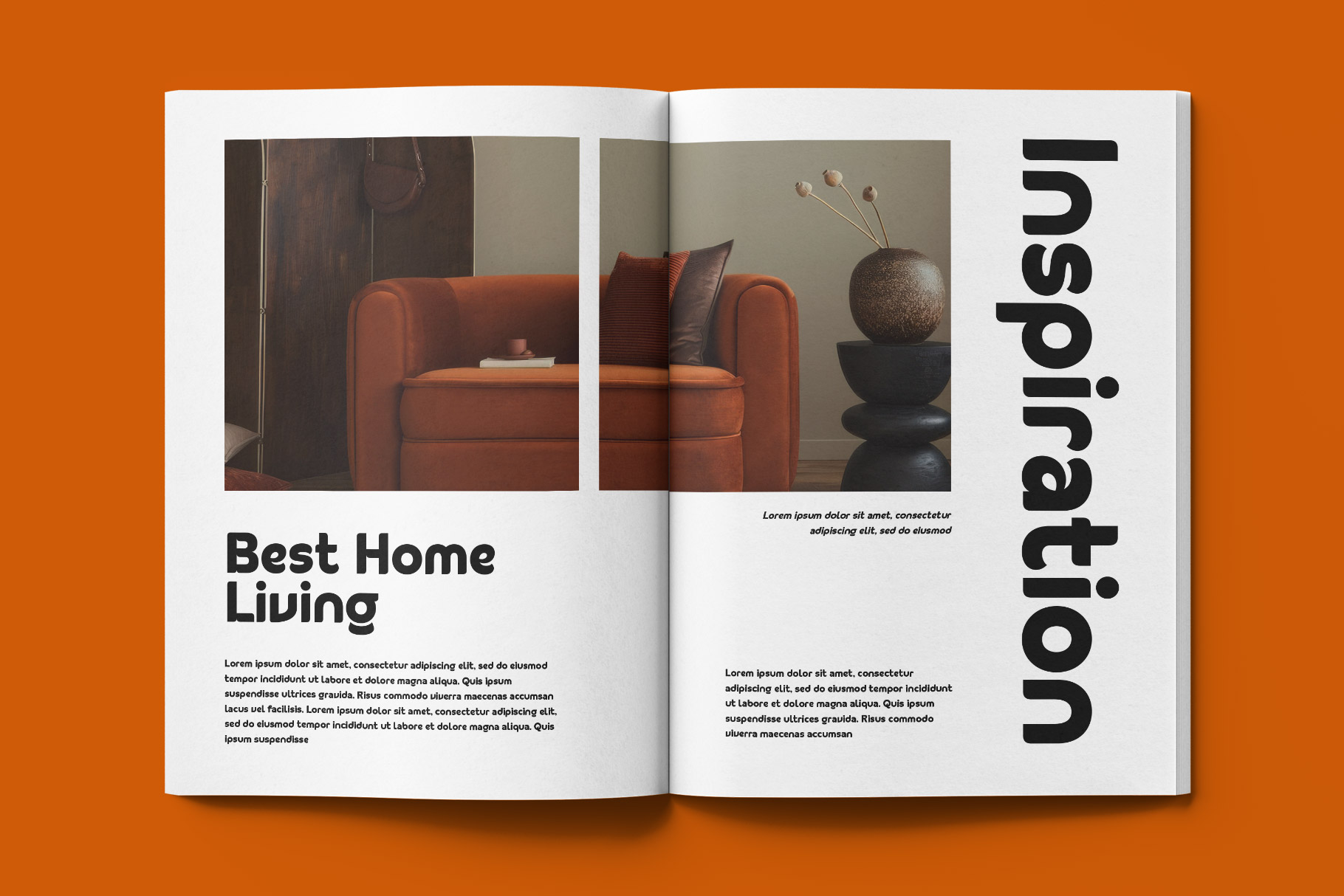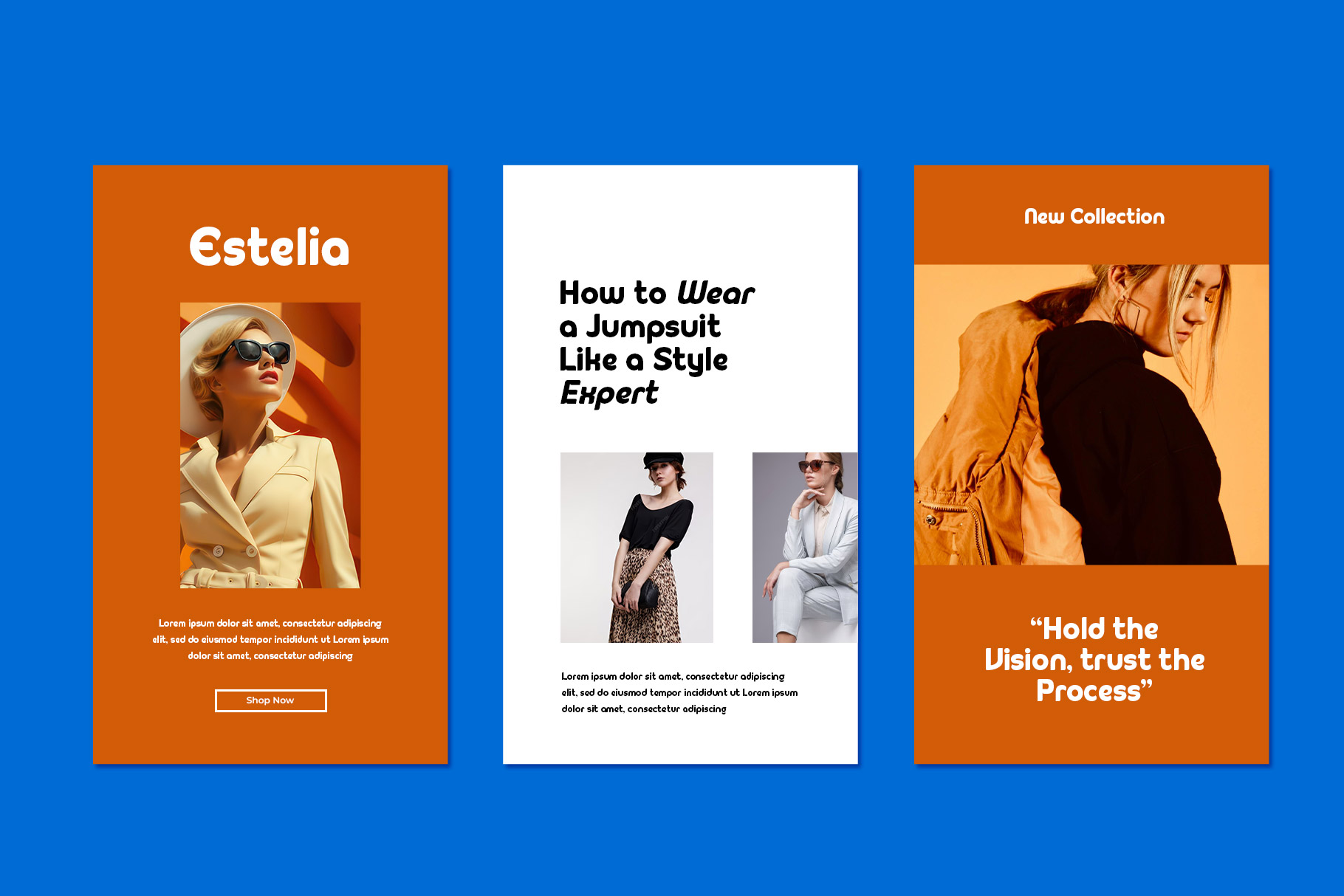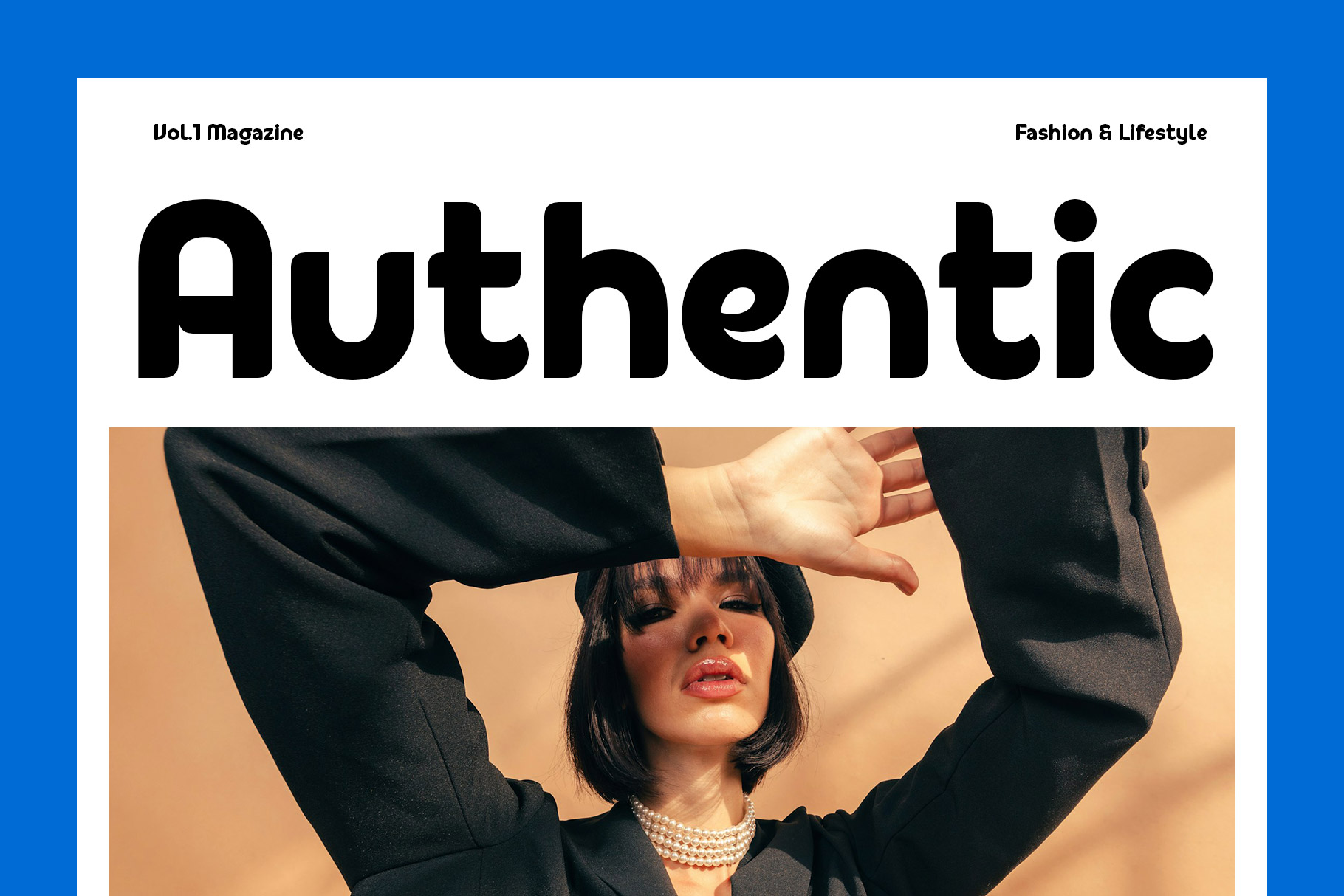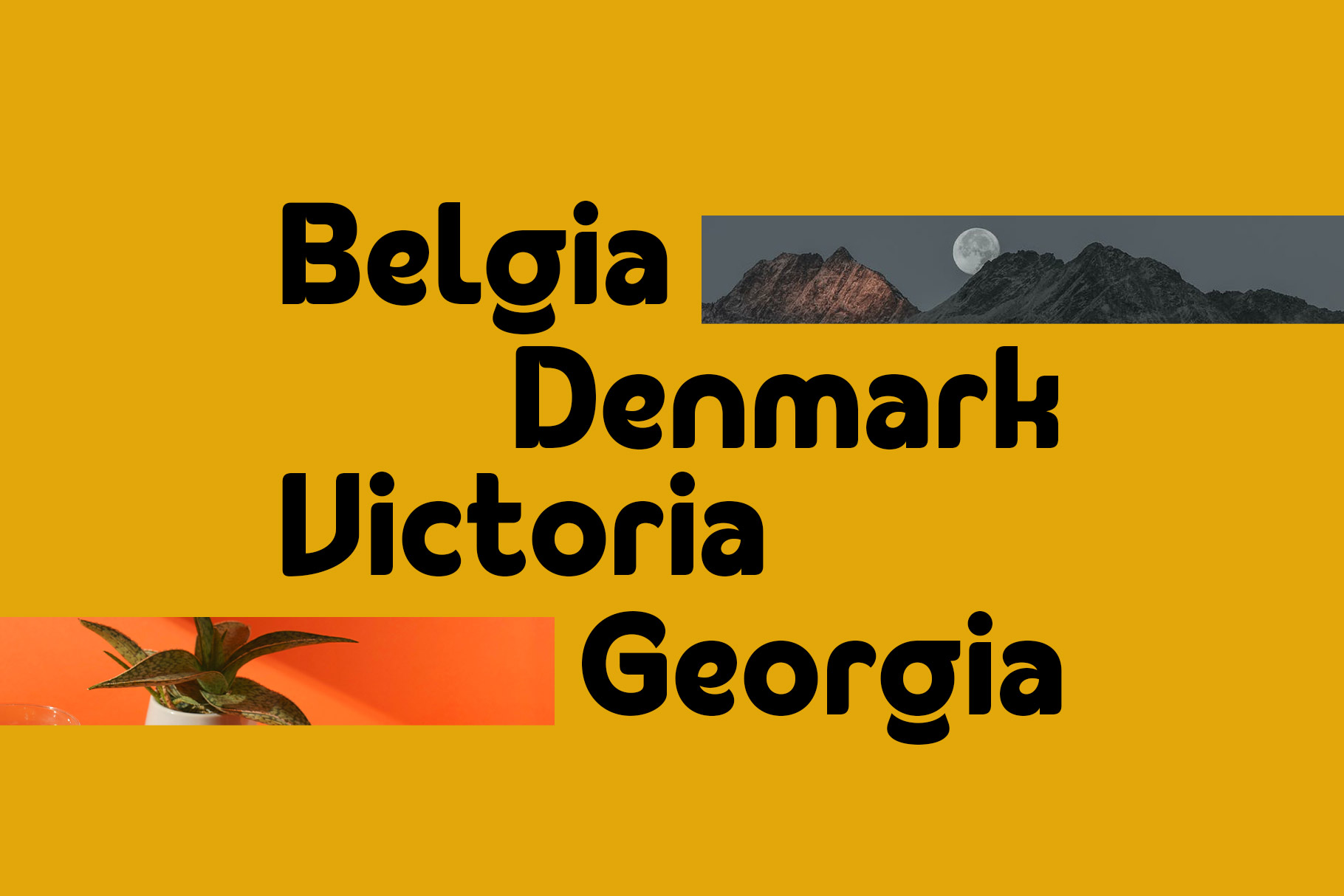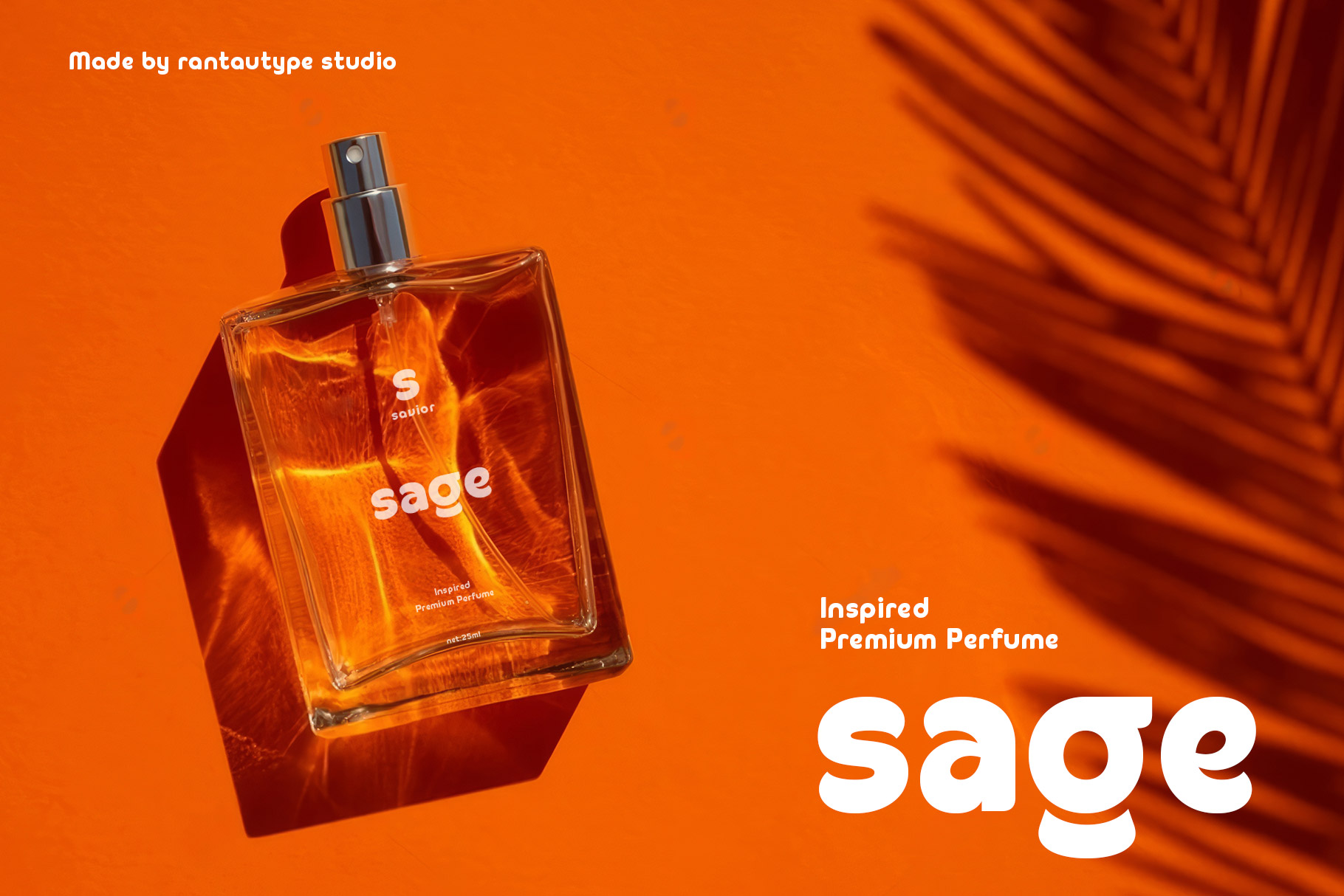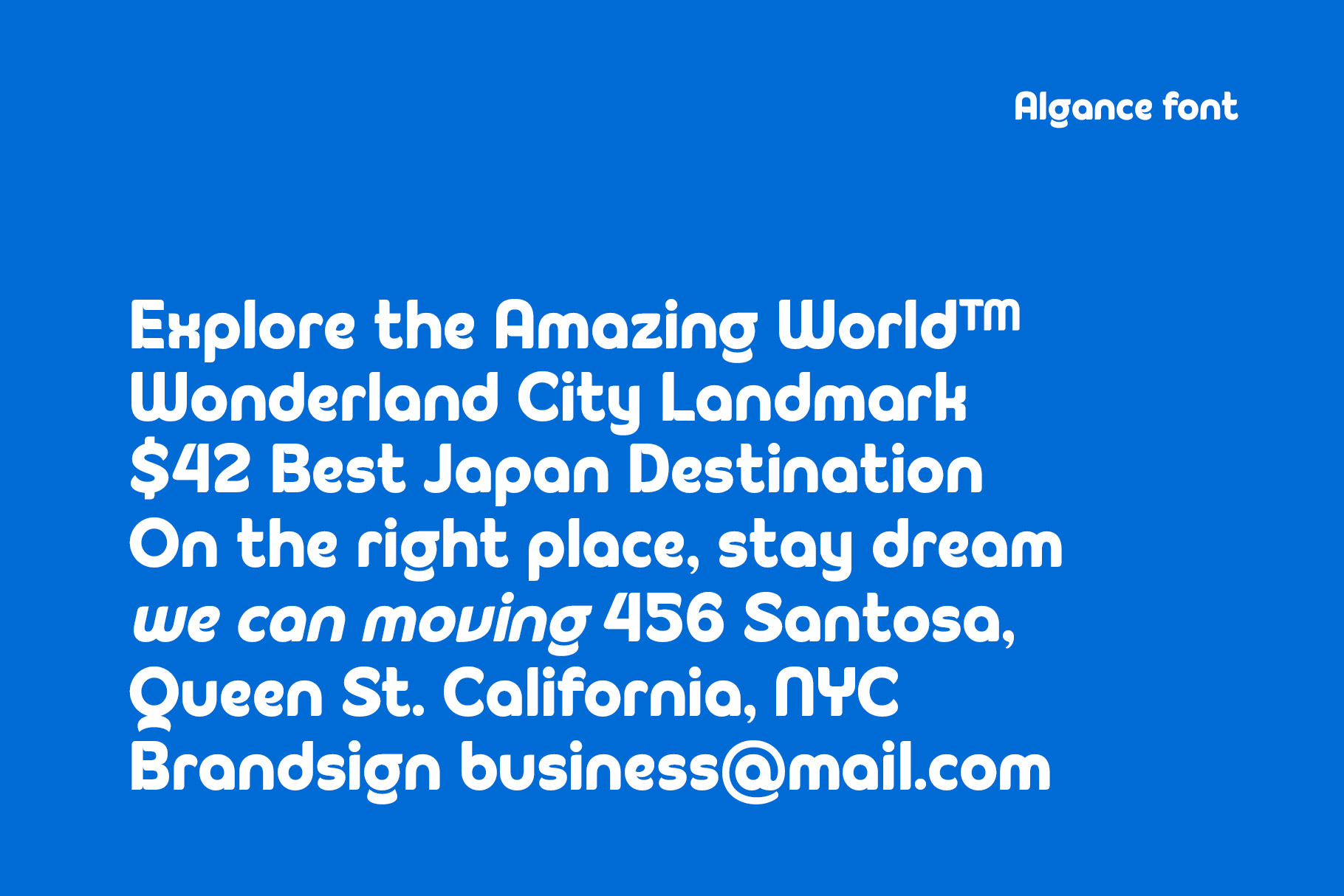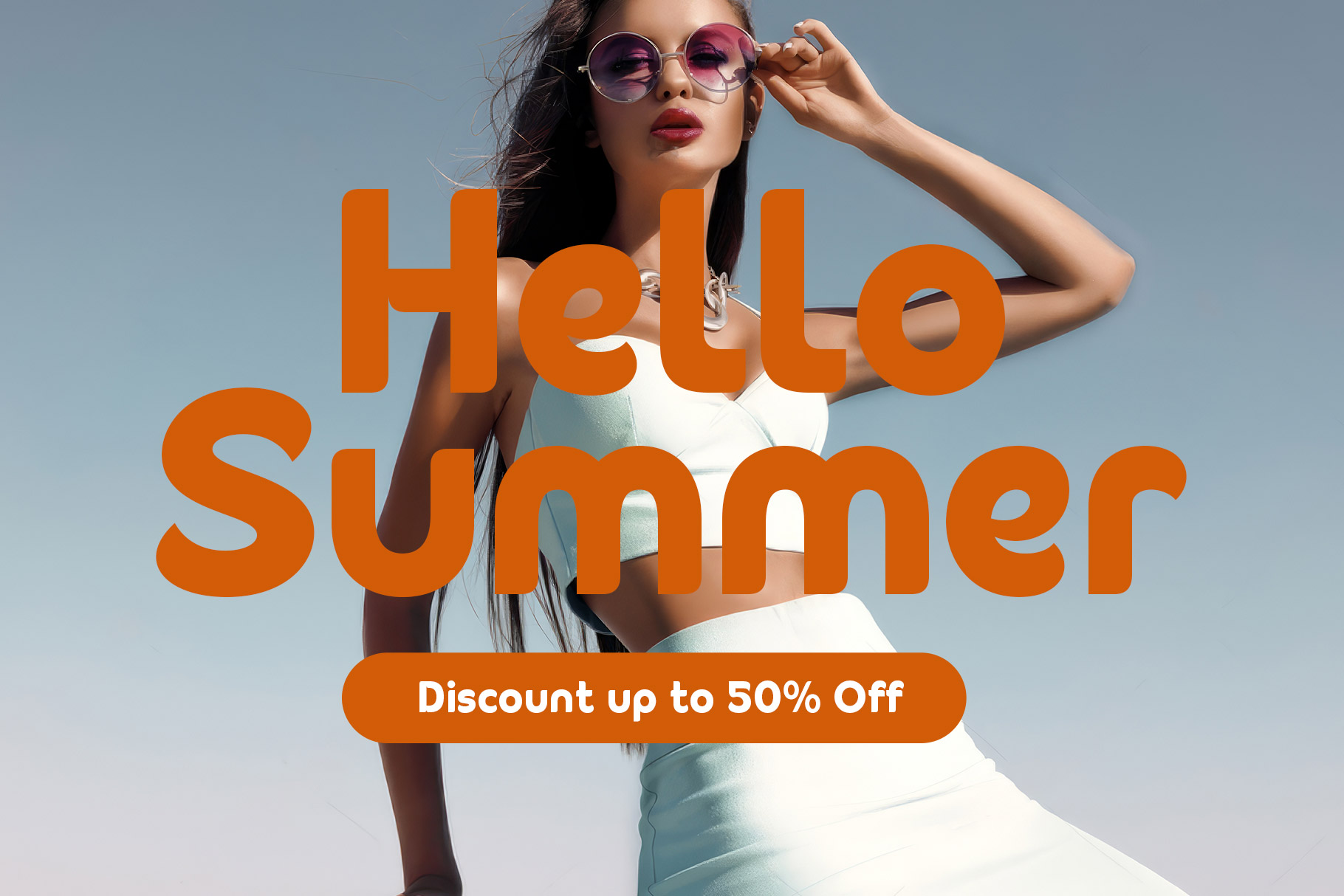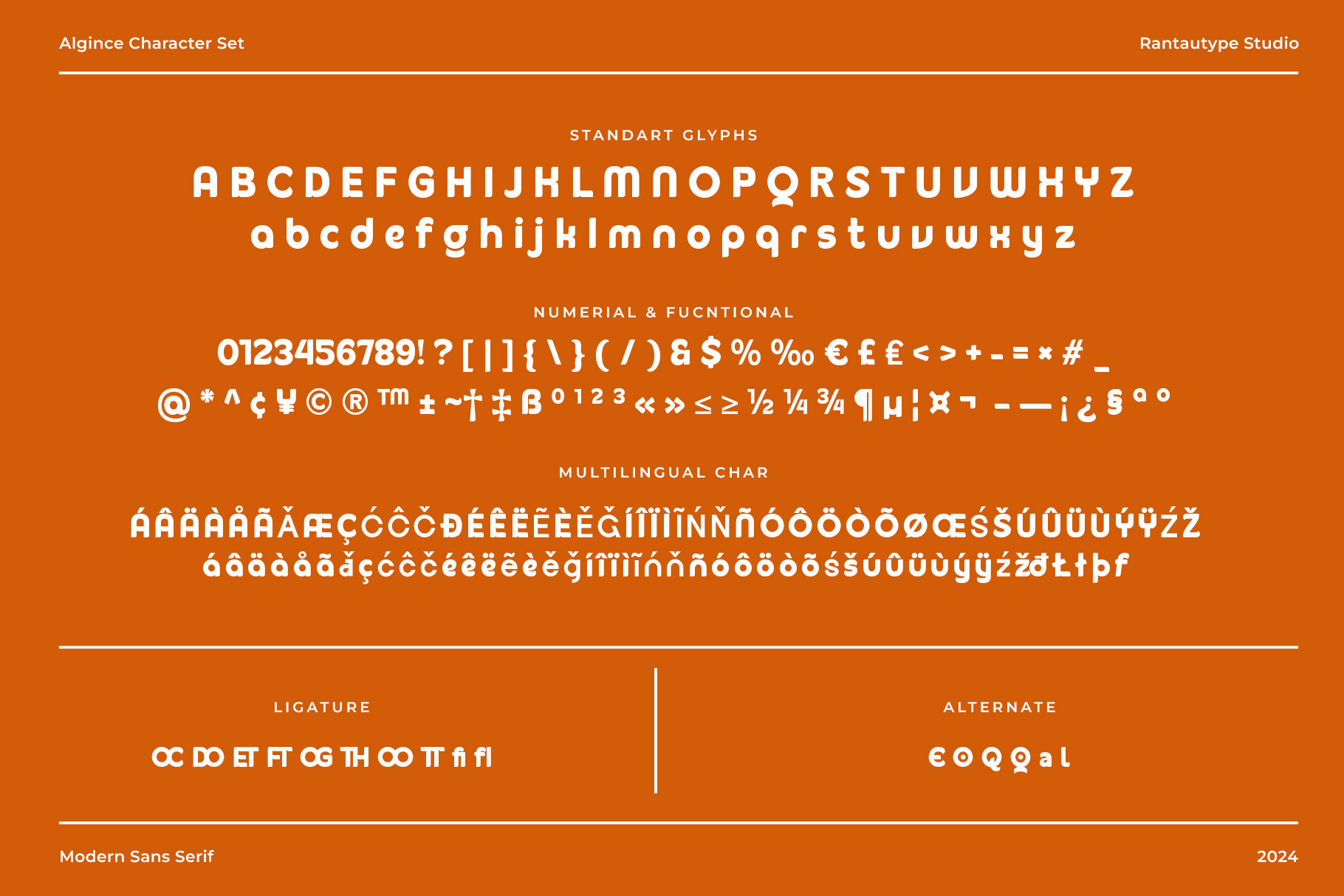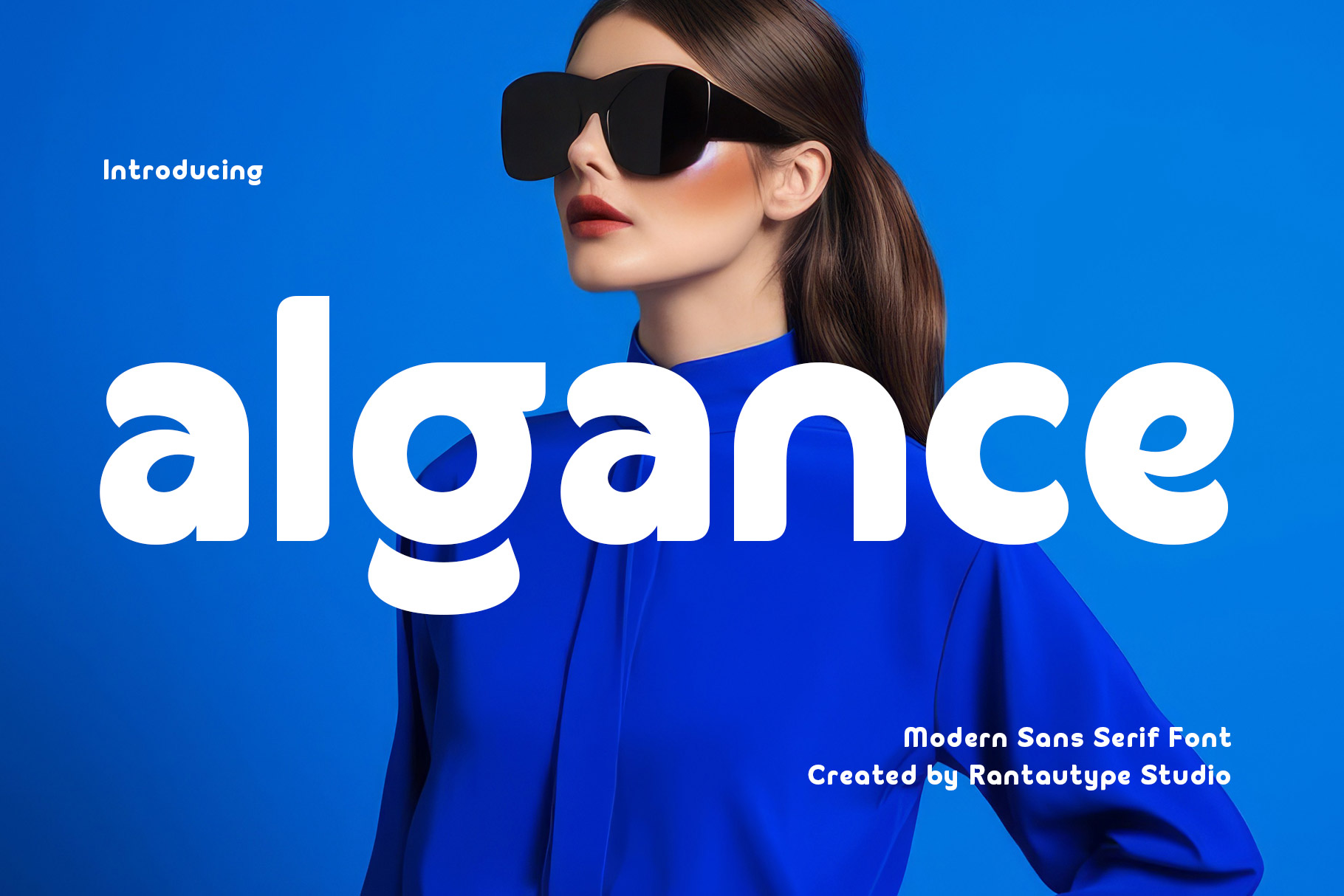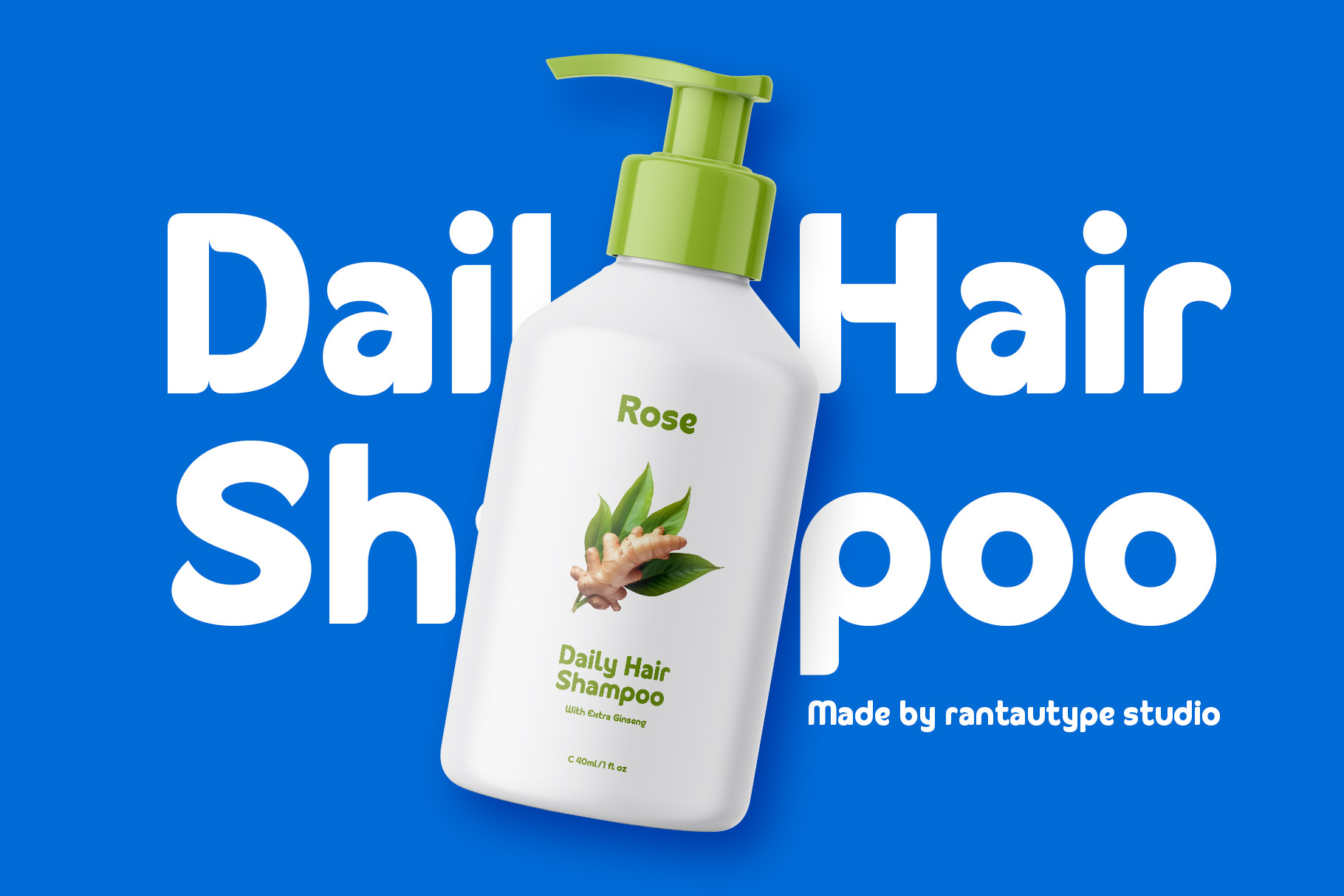
Algance Modern Sans Serif Font
Algance is contemporary sans serif font with unique details, contrast shape and classy display. Algance crafted with carefully with geometry look deep in industrial design principles.
Algance is a perfectly choice for any creative endeavor, chic, lifestyle design such as logos, advertisements, watermark on photography, stationery, branding project, display and magazine, invitation, corporate brand, product design, label, business project and many other project with industrial touch.